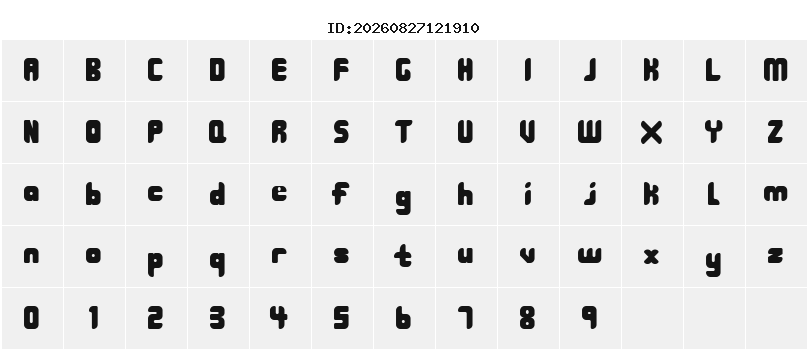
• Font Name: 208
• Designer: Quan Vu
About 208.ttf
208.ttf is a modern, elegant sans-serif font designed for ultimate readability and visual harmony. Perfect for branding, headlines, web design, and print materials.